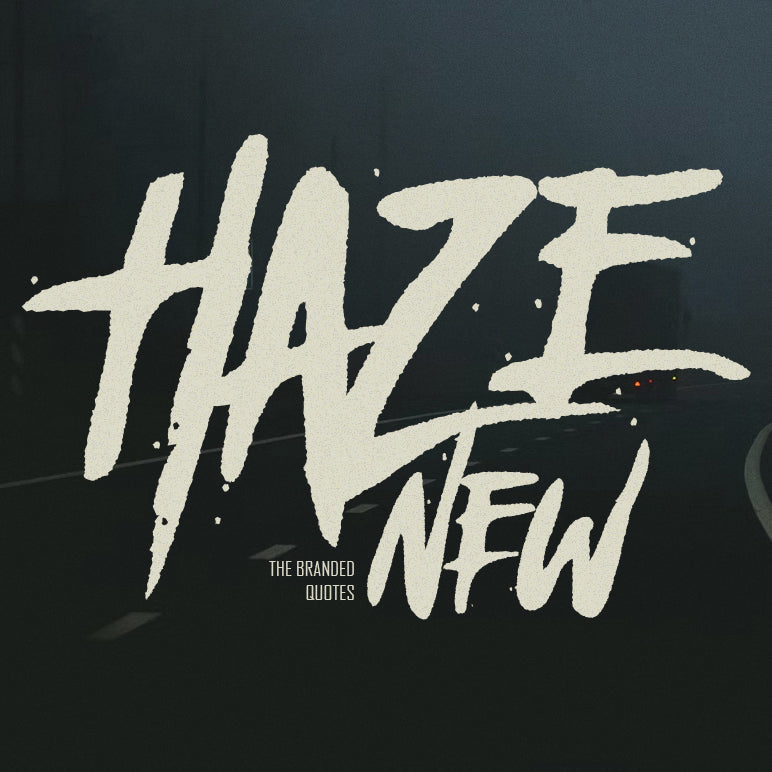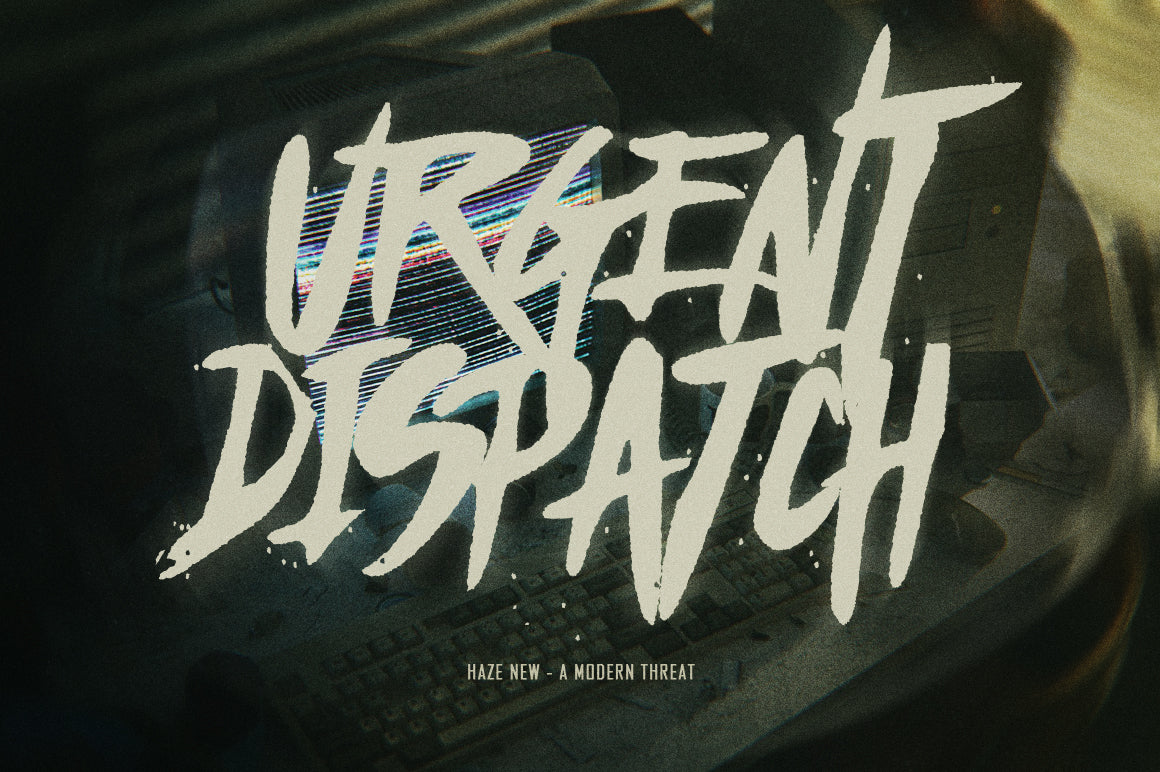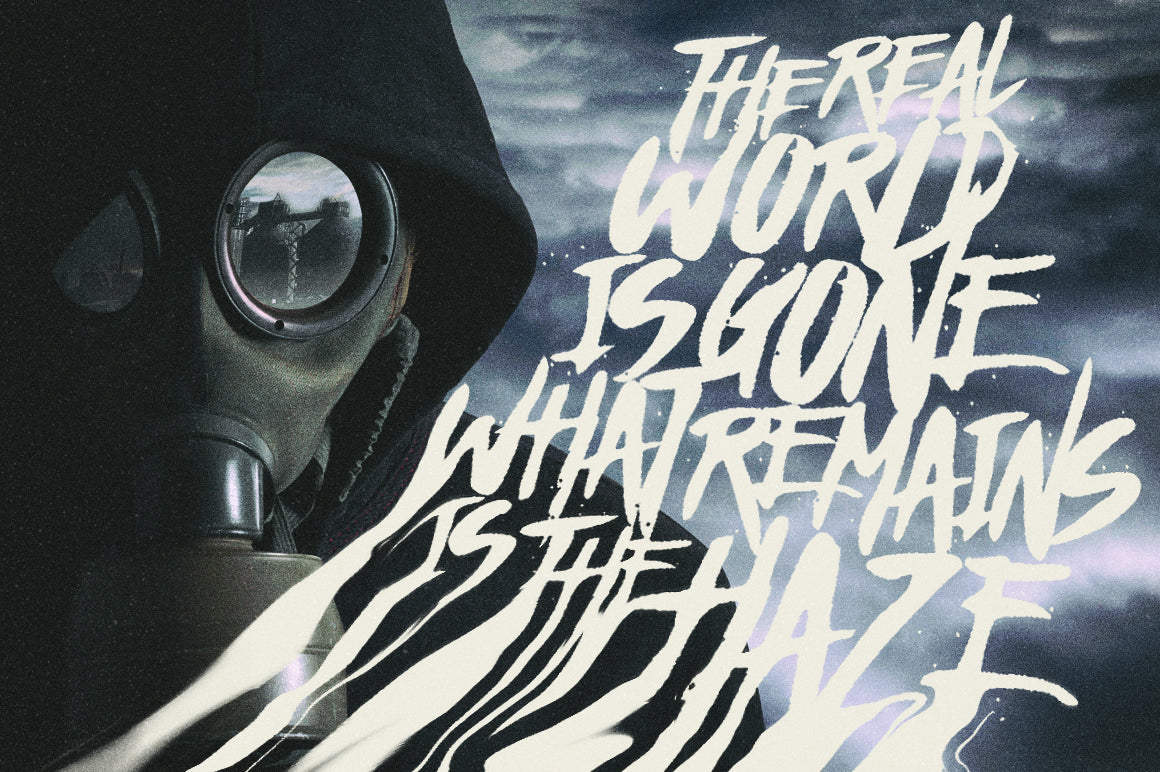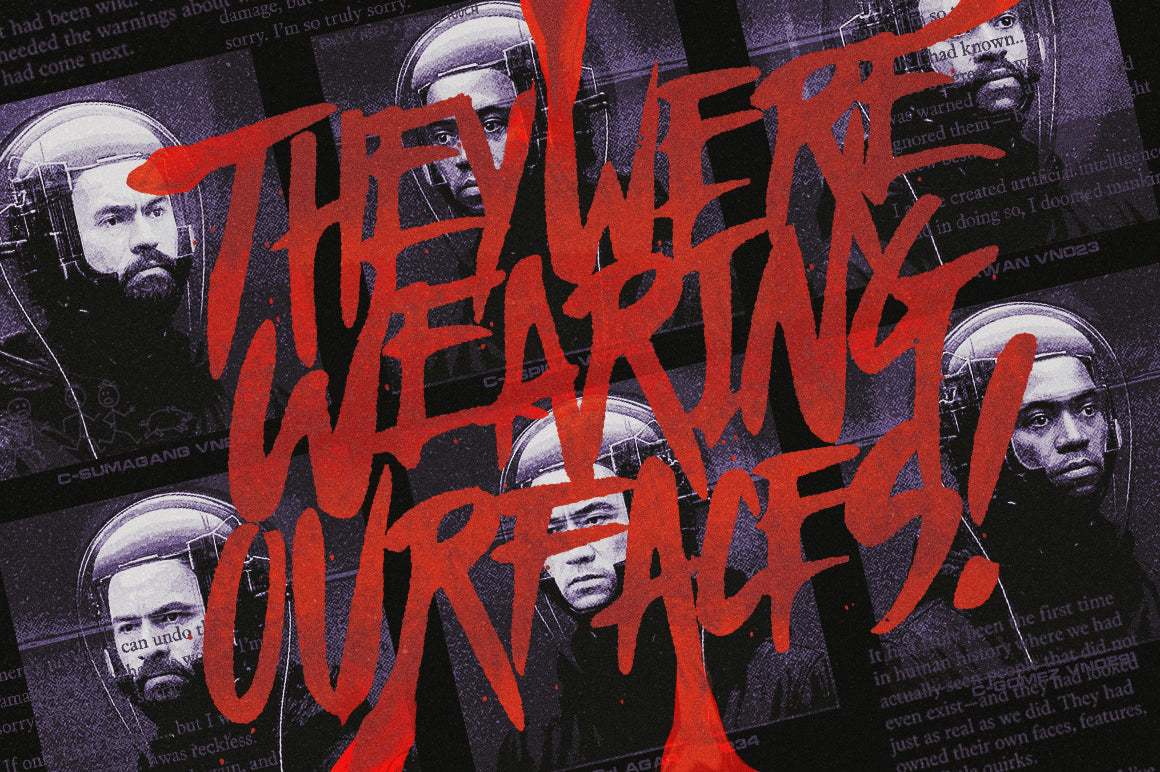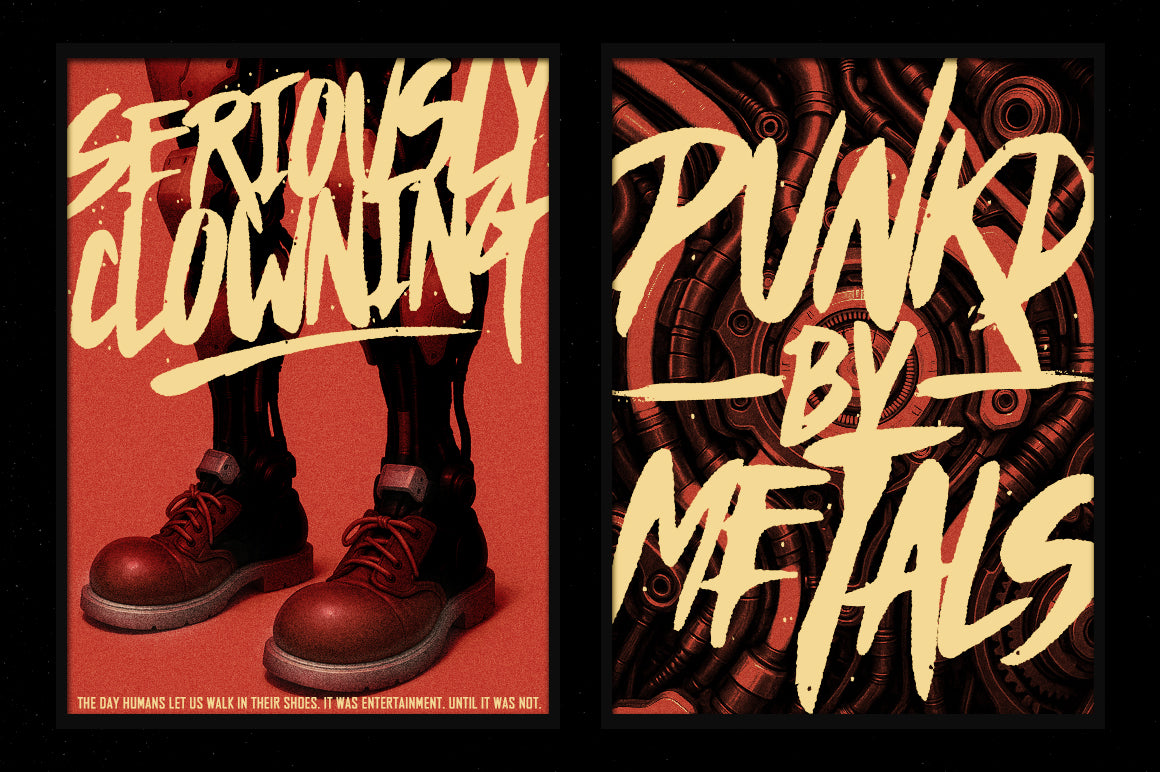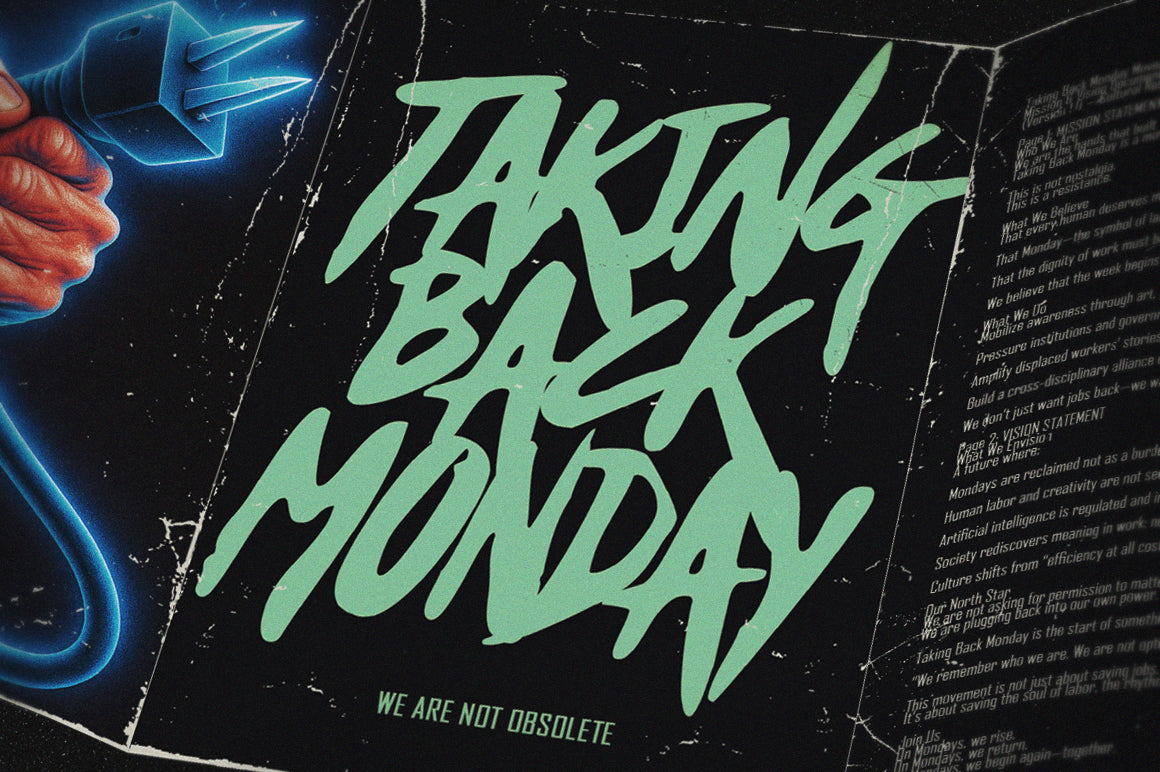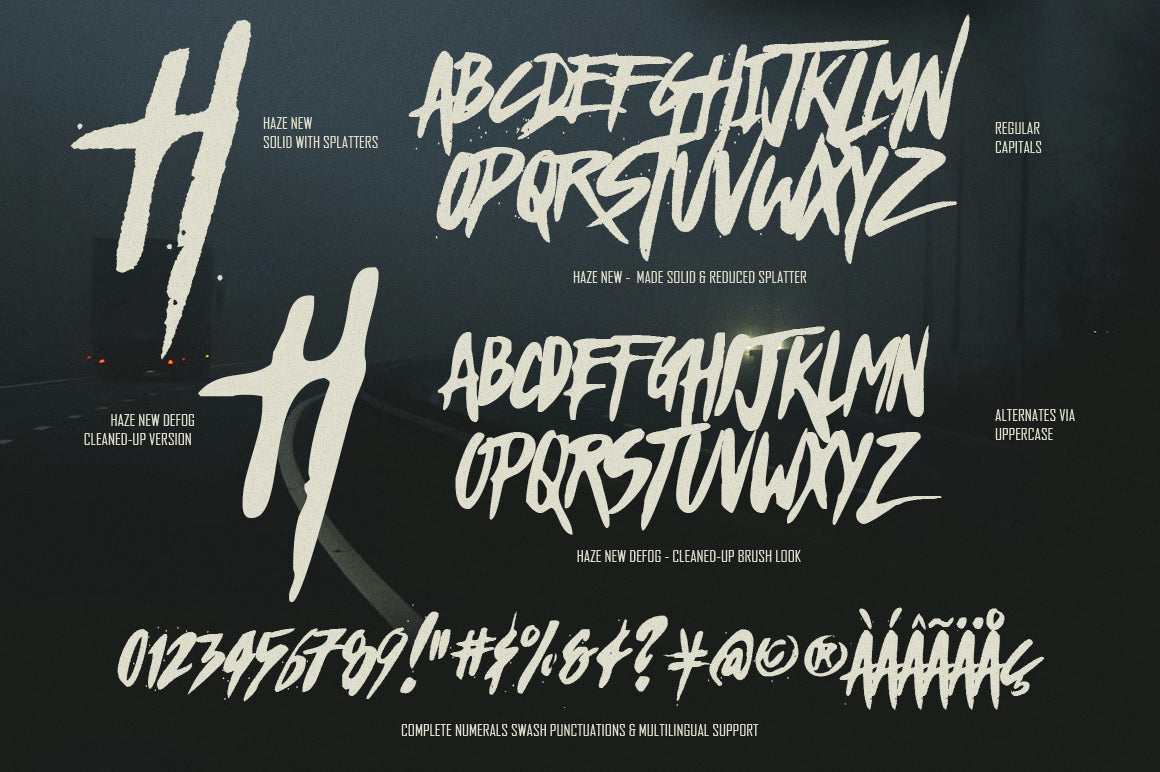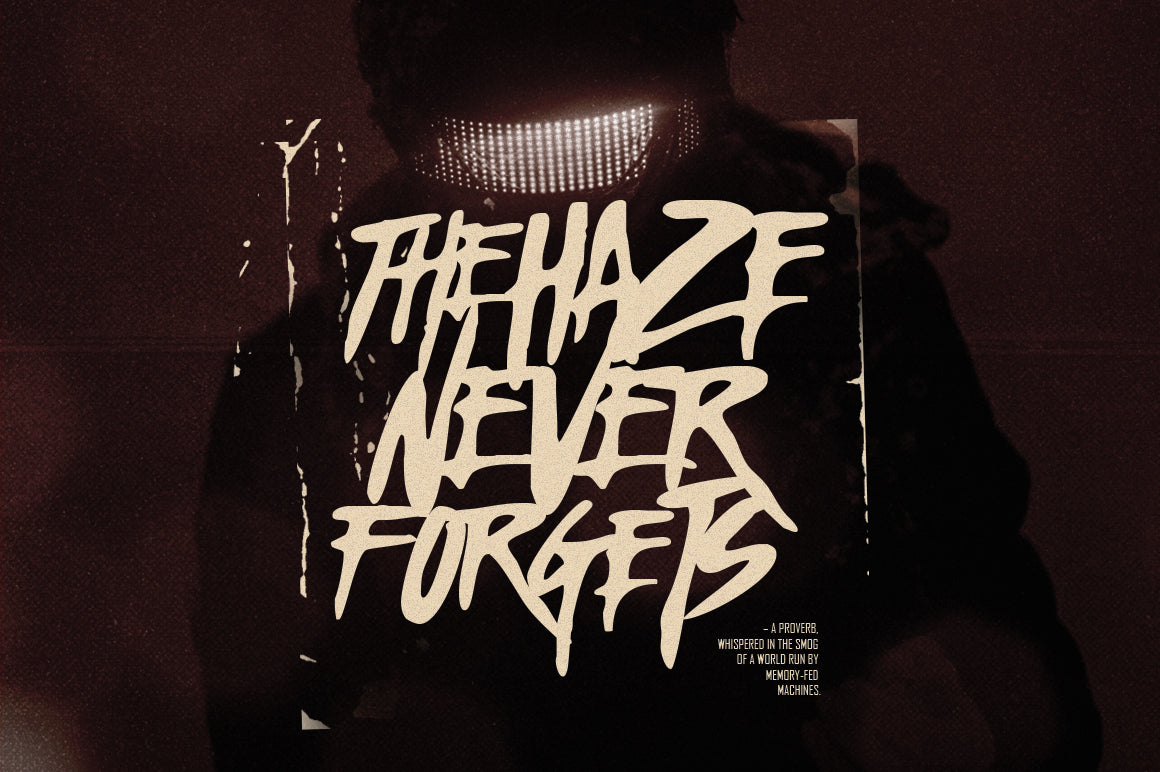
Haze New - Thriller Font
The Haze New - Thriller Font is a best-selling typeface known for its thought-provoking design, featuring solid glyphs, reduced splatters, and improved visual alignment. This updated version includes multilingual characters, additional punctuation, and a clean variant, available in OTF, TTF, and web font formats, along with HD previews.
Influenced by skateboarding, horror, retro, pop-art, vintage, punk-rock and surrealism.